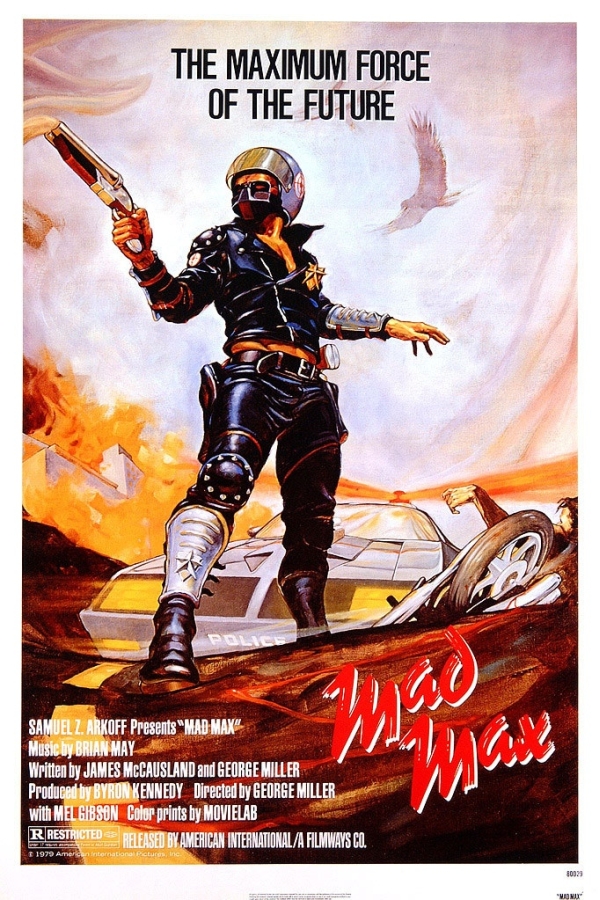
Mad Max Font
ActionMad Max is a 1979 Australian dystopian action movie directed by George Miller, produced by Byron Kennedy, and starring Mel Gibson. The story follows the exploits of Max Rockatansky, a police officer in a dystopian future where resources are scarce and society has collapsed.
Mad Max's title is in Reporter font, which Carlos Winkow created in 1938. The typeface's strokes have the appearance of being written with a dry brush, and the alignment is a little off, giving it a somewhat spontaneous appearance.